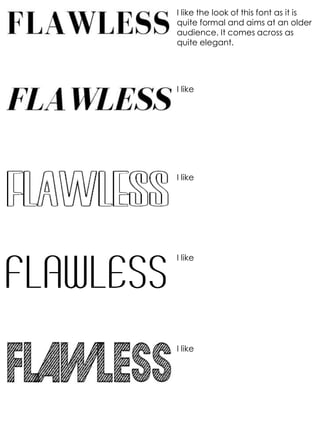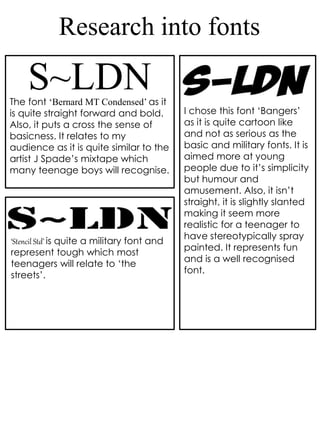
I like the look of this font as it is
quite formal and aims at an older
audience. It comes across as
quite elegant.
I like
Research into fonts
The font ‘Bernard MT Condensed’ as it
is quite straight forward and bold.
Also, it puts a cross the sense of
basicness. It relates to my
audience as it is quite similar to the
artist J Spade’s mixtape which
many teenage boys will recognise.
S~LDN
‘Stencil Std’ is quite a military font and
represent tough which most
teenagers will relate to ‘the
streets’.
I chose this font ‘Bangers’
as it is quite cartoon like
and not as serious as the
basic and military fonts. It is
aimed more at young
people due to it’s simplicity
but humour and
amusement. Also, it isn’t
straight, it is slightly slanted
making it seem more
realistic for a teenager to
have stereotypically spray
painted. It represents fun
and is a well recognised
font.
FONTS